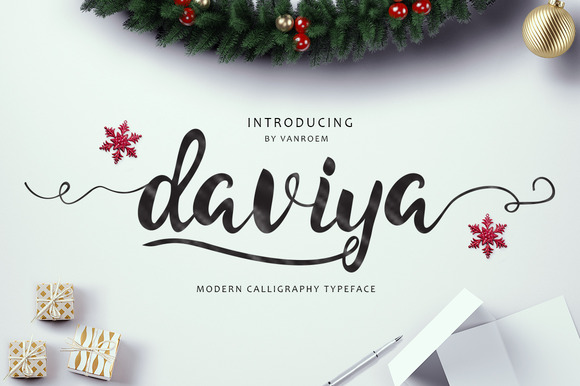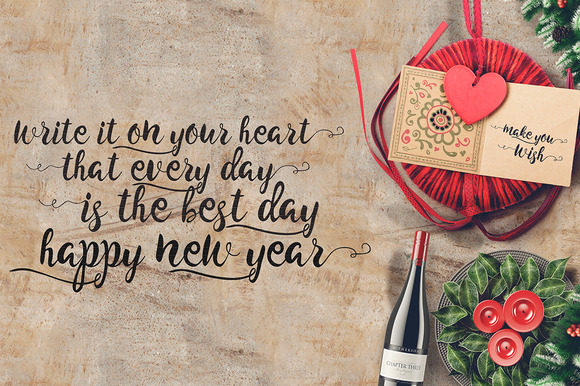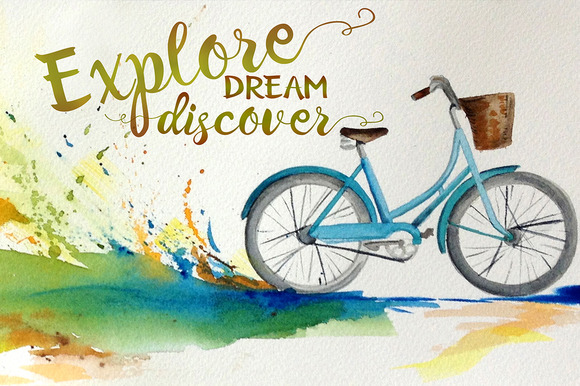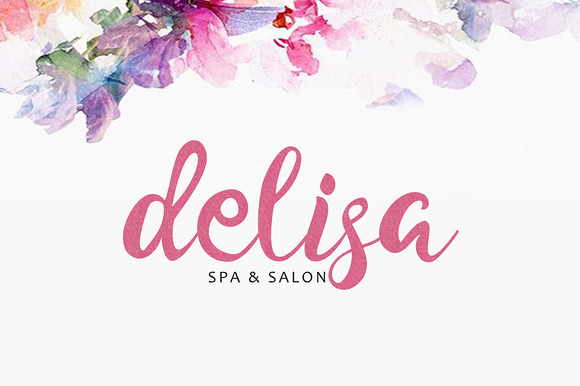
Daviya Font
About Daviya Font
Daviya script is a hand-inked font. It has a fun, imperfect baseline. It’s nice and bold, plus a little gritty – Perfect for creating organic, fluid typography on products, branding, invitations, flyers, posters, and wedding invitations.